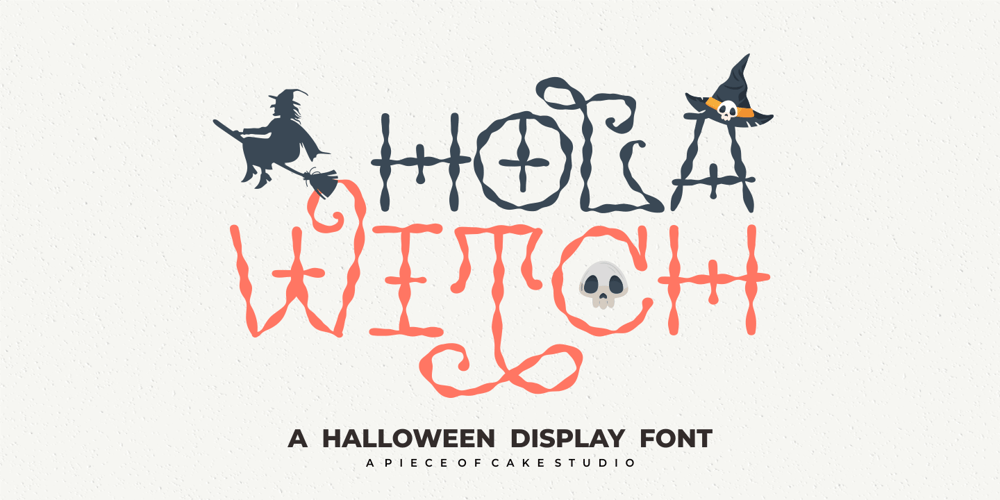
Hola Witch
Hola Witch font
Hola Witch Font Family was designed by Muh. Aswar, Andi Syahdang and published by Piece of Cake Typework. Hola Witch contains 1 styles and family package options. Hello World,Introducing, Hola Witch is a display font suitable for your design project needs, such as; Halloween themes, social media posts, quotes, overlays on images, tagline logos, posters, print needs, website banners, and more.Features* A set of uppercase and lowercase glyphs* Number, symbol, and punctuation* Multilingual Support* Some Swashes and alternatesThank you a million times for downloading and using this font for your projects.Enjoy this font and happy creating!Thank You